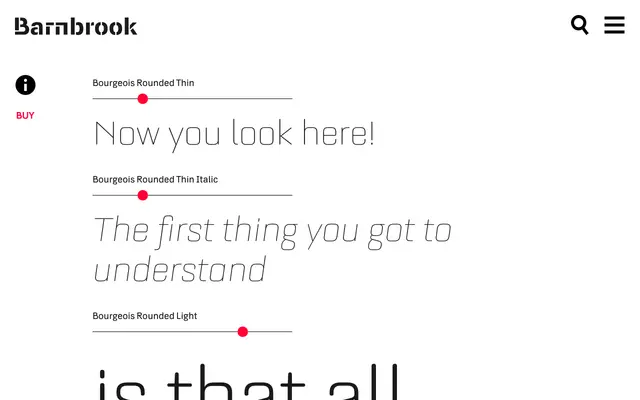
Bourgeois Rounded
A rounded geometric sans built on the Bourgeois framework, offering 24 styles across regular and condensed widths for short, expressive text.
Grown from the Bourgeois geometric family, this rounded variant softens the original's pared-down asceticism into something more dynamic and ephemeral. The family spans 24 styles across Bourgeois Rounded and Bourgeois Rounded Condensed, making it versatile for display and short text settings. Its rounded terminals sit in a tradition that is simultaneously ultramodern and nostalgic, lending itself to work requiring urgency or a degree of playfulness.
A rounded variant of the geometric sans Bourgeois, with clean contemporary letterforms echoing late 20th century modernism. The rounded terminals are characteristic of the rounded geometric sans subcategory.